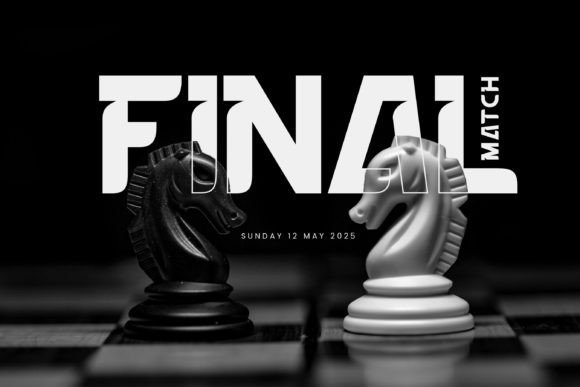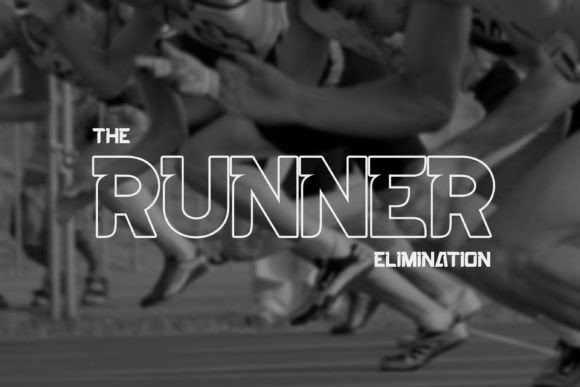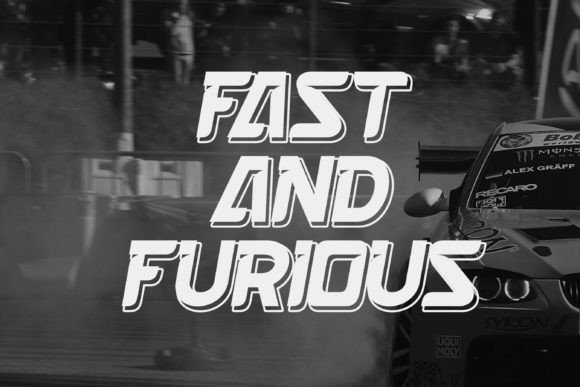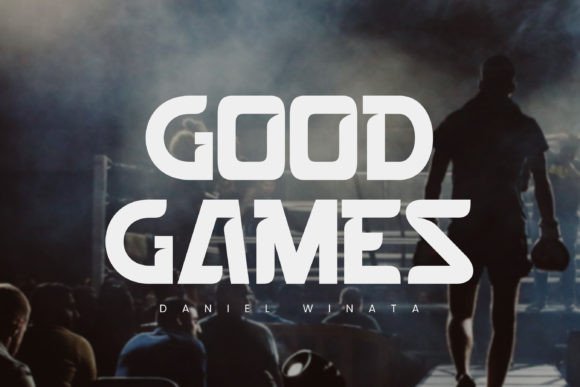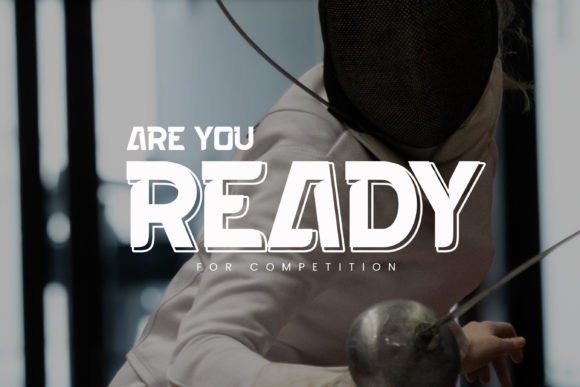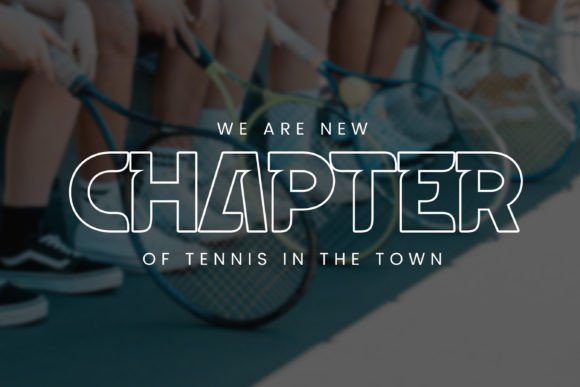
Unleash the Power of Speed: Introducing the Dark Force Font
In the world of sports and racing, speed and intensity are everything. The thrill of the ride, the rush of adrenaline, and the pursuit of victory are what drive athletes and teams to push beyond their limits. For designers and crafters looking to capture this essence in their work, a font that embodies the same qualities is essential. That’s where the Dark Force Font comes in – a bold, dynamic, and powerful typeface designed specifically for racing branding, sports events, and high-energy promotions.
The Dark Force Font: A Perfect Blend of Style and Performance
Dark Force is more than just a font – it’s an experience. Its bold, dynamic letterforms are crafted to evoke the thrill and intensity of high-speed racing, making it the perfect choice for designers who want to create stunning visuals that accelerate to the front of the pack. Whether you’re working on a racing team’s branding, promoting a sports event, or creating merchandise for a cycling or running enthusiast, Dark Force has got you covered.
Key Features of the Dark Force Font
- Bold and Dynamic Letterforms: Dark Force features bold, chunky letterforms that exude power and energy. Its dynamic design ensures that your text stands out, even at high speeds.
- Powerful Presence: This font has a commanding presence that’s perfect for headlines, titles, and promotional materials. It’s designed to grab attention and leave a lasting impression.
- Versatility: Dark Force is versatile enough to be used across various design projects, from racing branding and event promotions to merchandise and apparel.
- Ease of Use: The font is easy to read, even in smaller sizes, making it suitable for a wide range of applications.
Design Applications for Dark Force
Dark Force’s versatility makes it an excellent choice for various design projects. Here are some ideas to get you started:
- Racing Branding: Create a lasting impression with bold, eye-catching logos and branding materials for racing teams, events, or sponsors.
- Sports Events: Promote marathons, cycling events, or any other sports competition with dynamic posters, flyers, and social media graphics.
- Event Promotions: Use Dark Force to create attention-grabbing promotional materials, such as banners, billboards, and digital ads.
- Merchandise: Design high-energy merchandise, including t-shirts, hats, and water bottles, that appeal to sports enthusiasts and racing fans.
Why Choose Dark Force?
In a world where visual impact is crucial, Dark Force offers a unique combination of style, performance, and versatility. Here are some reasons why designers and crafters should choose Dark Force:
- Unique Design: Dark Force’s bold, dynamic letterforms set it apart from other fonts, ensuring your designs stand out in a crowded market.
Dark Force is more than just a font – it’s a tool that can elevate your designs and help you connect with your audience on a deeper level. Its bold, dynamic letterforms and powerful presence make it perfect for racing branding, sports events, and high-energy promotions. Whether you’re a designer, crafter, or simply someone who loves speed and style, Dark Force is the perfect choice for your next project. So why wait? Unleash the power of speed and take your designs to the next level with Dark Force.